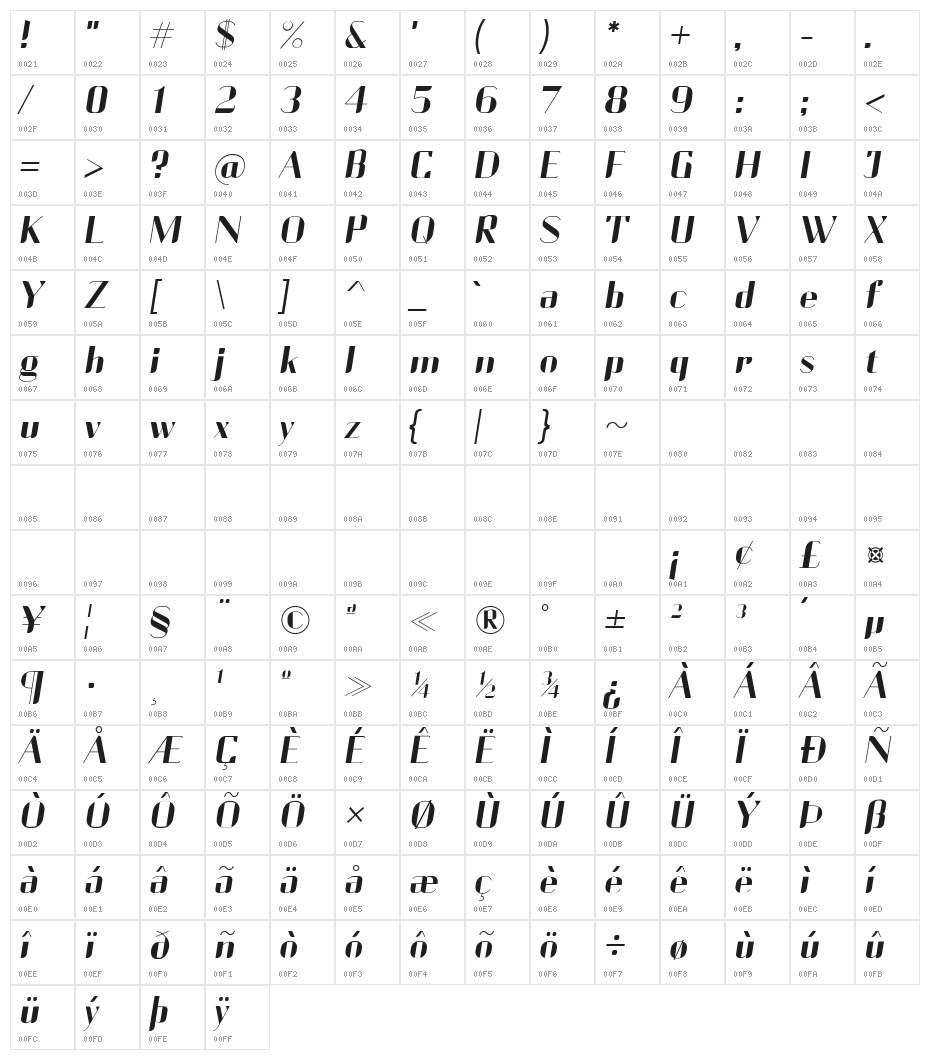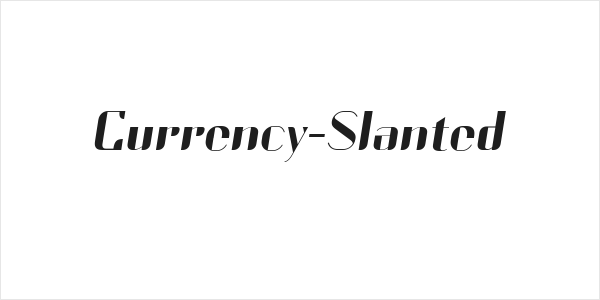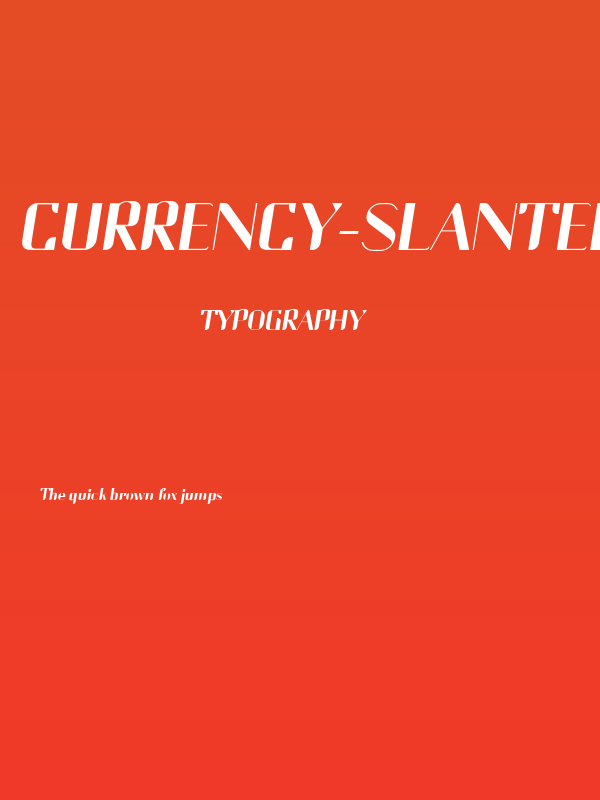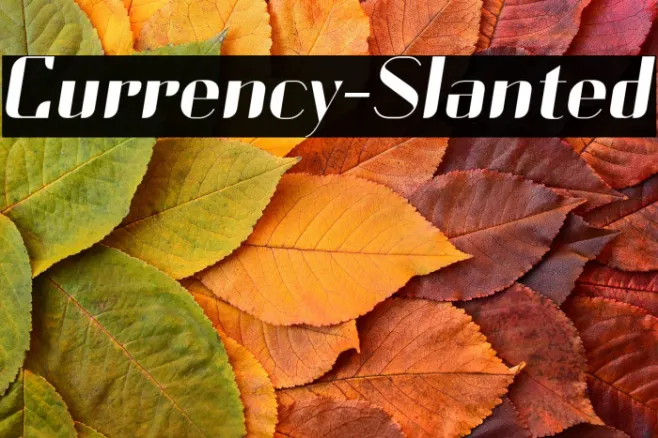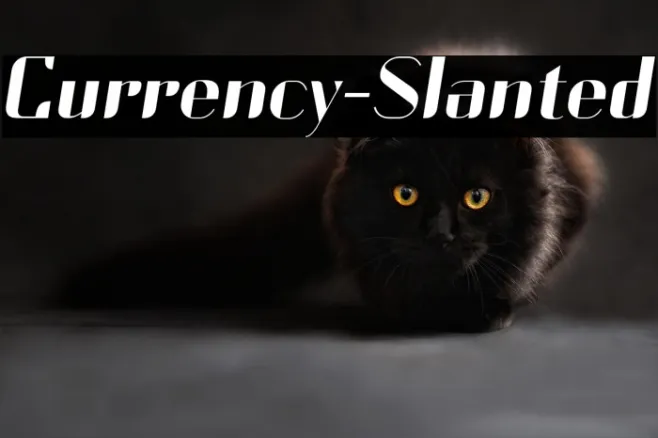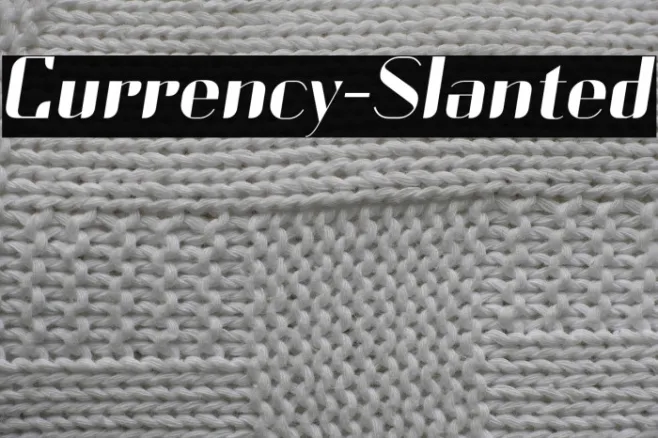
Currency-Slanted Font
Currency-Slanted Description
This font features a dynamic and modern slanted design with a distinct italicized style. The characters exhibit a high contrast between thick and thin strokes, creating a sense of elegance and movement. The uppercase letters are bold and commanding, while the lowercase letters maintain a consistent slant, enhancing readability. The numerals are designed with a similar slant, ensuring uniformity across the typeface. Special characters are included, maintaining the same stylistic approach. This font is ideal for projects that require a touch of sophistication and modernity.
| Overall Style | Modern, Elegant |
| Proposed Projects | Ideal for branding, editorial design, fashion magazines, and luxury product packaging. |